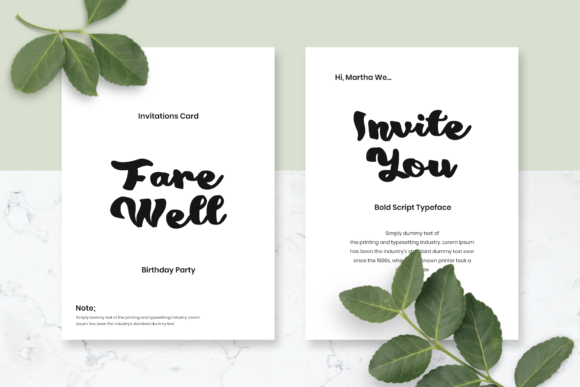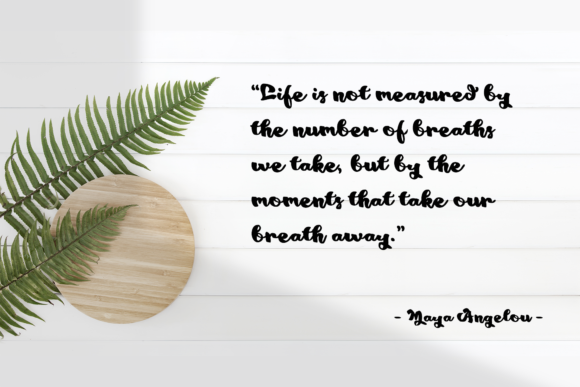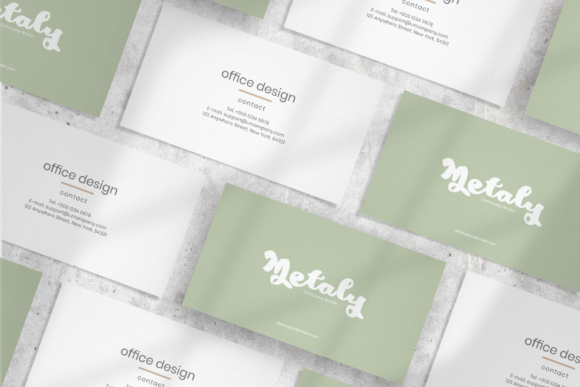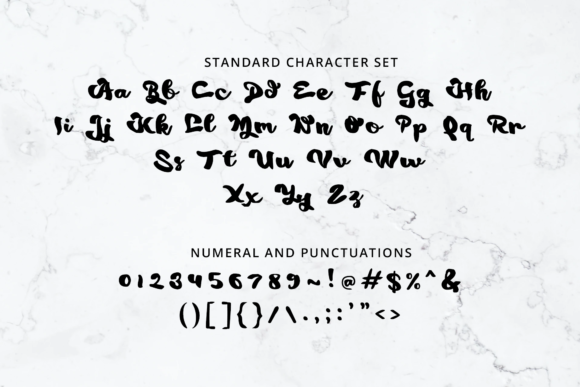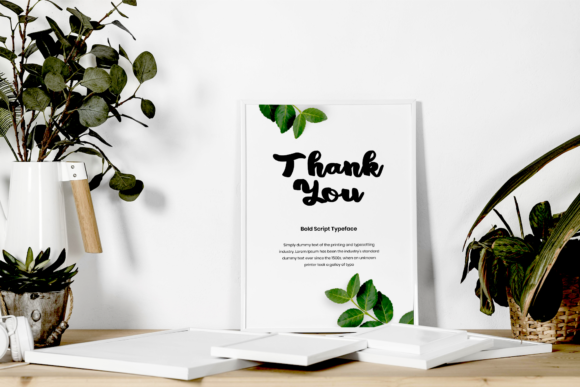
Unlocking Your Creative Potential with Metaly Font
As a designer, you’ve likely found yourself staring at a blank canvas, wondering what will bring your creative project to life. The right font can make all the difference, and that’s where Metaly Font comes in – a dazzling script font that’s sure to elevate your work. With its neatly crafted and highly detailed design, Metaly Font is the perfect addition to any design library.
Imagine having a versatile font that can add a touch of elegance to any creation, from invitations to editorial content. With Metaly Font, you’ll have the freedom to express yourself without limitations. Whether you’re working on a free download project or a high-quality design, this font is a valuable resource that’s sure to make your work stand out. Its transparent background and high-quality design make it a must-have for any designer looking to take their work to the next level.
Key Features of Metaly Font
- High-quality vector design for a professional look in creative projects.
- Features a transparent background, making it easy to integrate with any design.
- Comes in a range of sizes and resolutions, including 100px, 200px, and 300px at 300 DPI.
- Perfect design resource for graphic designers, illustrators, and digital artists working on various projects.
- Unique, modern design style that can add a touch of sophistication to any creative project.
Honest Review: Metaly Font
One of the standout features of the Metaly Font is its high quality and versatility. It’s perfect for use in a variety of contexts, from digital design to print materials. The font also comes with a transparent background, making it easy to use in combination with other design elements.
- ✨ High quality design that’s perfect for a variety of applications
- ✨ Transparent background for easy combination with other design elements
That being said, there are a few limitations to consider:
- ⚠️ Limited font styles and variations, which may limit its use in more complex design projects
- ⚠️ Not as customizable as some other design resources
Overall, I’m really impressed with the Metaly Font. It’s a great addition to any design library, and its high quality and versatility make it a valuable resource for designers working on creative projects.
Metaly Font is perfect for a variety of creative projects, including graphic design, branding, and digital art. Its transparent background and high-quality design make it a valuable resource for designers and artists.
Tips for Getting the Most Out of Metaly Font
To get the most out of Metaly Font, be sure to download the free version from a reliable source and use it for personal or commercial projects. With its high-quality design and transparent background, Metaly Font is a valuable design resource that can help take your creative project to the next level.
Alternatives to Metaly Font
Font Awesome is a popular font and icon library that can be used for a variety of creative projects. It offers a wide range of high-quality icons and glyphs that can be used in place of traditional fonts. When to use: web development, mobile app design, and graphic design. How it compares to Metaly Font: Font Awesome offers a more extensive library of icons and glyphs, making it a better choice for projects that require a wide range of visual elements.
Open Sans is a free download font that is highly legible and suitable for a variety of design projects. It is available in several weights and styles, making it a versatile choice for designers. When to use: body text, headings, and titles. How it compares to Metaly Font: Open Sans is a more straightforward font with a clean design, whereas Metaly Font is more stylized and decorative.
Yes, the Metaly Font supports transparent backgrounds, making it perfect for use with images or videos that have a transparent or semi-transparent overlay. Simply use the font with a transparent background image or video to achieve a seamless design.